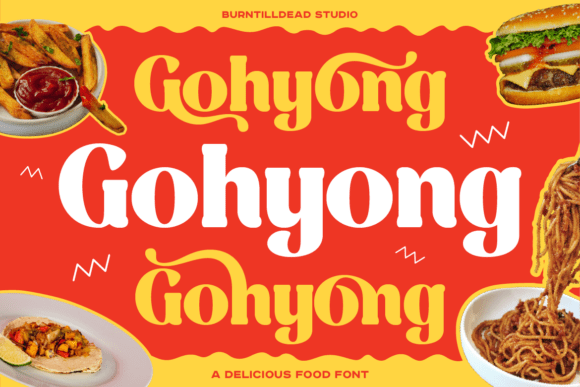
Gohyong Font: Elevate Your Designs with a Modern yet Classic Touch
In the world of digital design, fonts play a crucial role in conveying messages, evoking emotions, and creating a lasting impression. With the vast array of fonts available, finding the perfect one that combines modernity with a touch of classic elegance can be a daunting task. However, if you’re looking for a font that embodies both sophistication and playfulness, look no further than Gohyong. This fun and bold font has been making waves in the design community, and for good reason. In this article, we’ll delve into the world of Gohyong, exploring its features, benefits, and how it can elevate your designs to new heights.
Meet Gohyong: A Fun and Bold Font
Gohyong is more than just a font; it’s a design tool that helps you create with confidence and style. This modern font combines clean lines with a sophisticated look, making it perfect for a wide range of design projects. Whether you’re working on a branding campaign, a website, or marketing materials, Gohyong offers a unique blend of modernity and classic charm that will make your designs stand out.
One of the standout features of Gohyong is its versatility. This font is designed to be highly adaptable, making it suitable for various design applications. From headlines and titles to body text, Gohyong’s clean and elegant design ensures that your message is conveyed with clarity and style.
Key Features of Gohyong Font
- Modern Design: Gohyong boasts a contemporary design that is perfect for modern brands looking to make a statement.
- Clean and Sophisticated: The font’s clean lines and sophisticated look make it ideal for creating elegant and refined designs.
- Versatile: Gohyong is highly adaptable, making it suitable for a wide range of design applications, from digital media to print materials.
- Easy to Read: The font’s clear and legible design ensures that your message is conveyed with ease, making it perfect for body text and headlines.
- Unique Character: Gohyong’s unique character set adds a touch of personality to your designs, setting them apart from the rest.
The Benefits of Using Gohyong Font
So, why choose Gohyong over other fonts? Here are just a few benefits of using Gohyong in your designs:
- Enhances Brand Identity: Gohyong’s unique and modern design helps create a strong brand identity that resonates with your audience.
- Improves Readability: The font’s clean and legible design ensures that your message is conveyed clearly, improving readability and engagement.
- Increases Versatility: Gohyong’s adaptability makes it suitable for various design applications, saving you time and effort in finding the perfect font for each project.
- Adds Personality: Gohyong’s unique character set adds a touch of personality to your designs, helping you connect with your audience on a more personal level.
How to Use Gohyong Font in Your Designs
Using Gohyong in your designs is easy. Here are a few tips to get you started:
- Pair it with Other Fonts: Gohyong works well with other fonts, so don’t be afraid to experiment with different combinations to find the perfect pairing.
- Use it for Headlines and Titles: Gohyong’s bold and modern design makes it perfect for headlines and titles, adding a touch of sophistication to your designs.
- Experiment with Colors: Gohyong’s clean design looks great in a variety of colors, so don’t be afraid to experiment with different color schemes to find the perfect one for your design.
Gohyong Font Inspiration: Real-World Applications
Seeing Gohyong in action can be a great way to get inspiration for your own designs. Here are a few real-world applications of Gohyong:
- Branding Campaigns: Gohyong’s modern and sophisticated design makes it perfect for branding campaigns, helping to create a strong brand identity.
- Website Design: Gohyong’s clean and legible design makes it ideal for website design, improving readability and user experience.
- Marketing Materials: Gohyong’s bold and attention-grabbing design makes it perfect for marketing materials, such as brochures, flyers, and posters.
In conclusion, Gohyong is a fun and bold font that combines modern design with a touch of classic elegance. Its versatility, readability, and unique character set make it an excellent choice for designers looking to elevate their designs. Whether you’re working on a branding campaign, website design, or marketing materials, Gohyong is a design tool that will help you create with confidence and style.